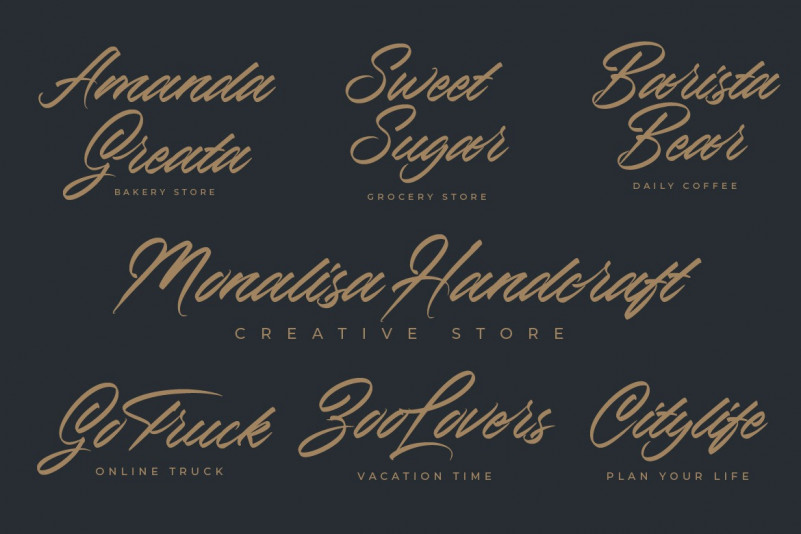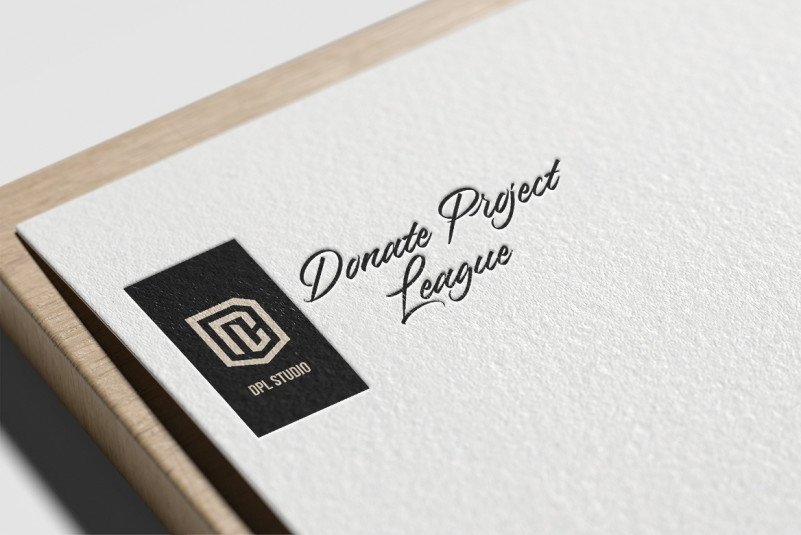
Creativa Script Font
This is a textured brush font created by DPL Studio with a contemporary design style. It has a charming,authentic and relaxed feeling and is perfect for adding a natural touch to your designs.Fall in love with unique and authentic letters!
Creativa are perfect for magazines, posters, branding, invitations, photography, watermarks,website titles, master signs, invitations, labels, logos, business cards and other design products.